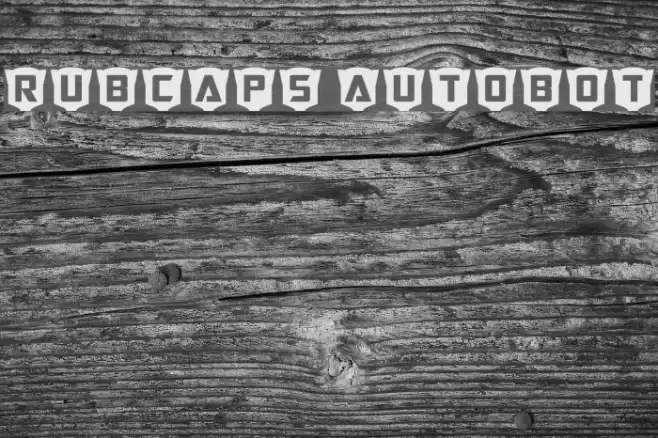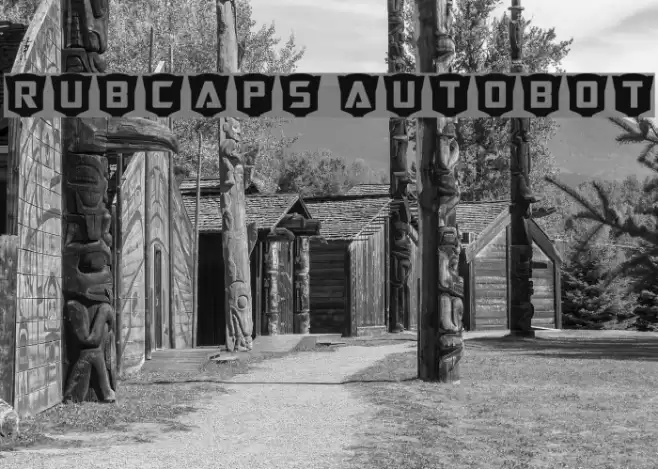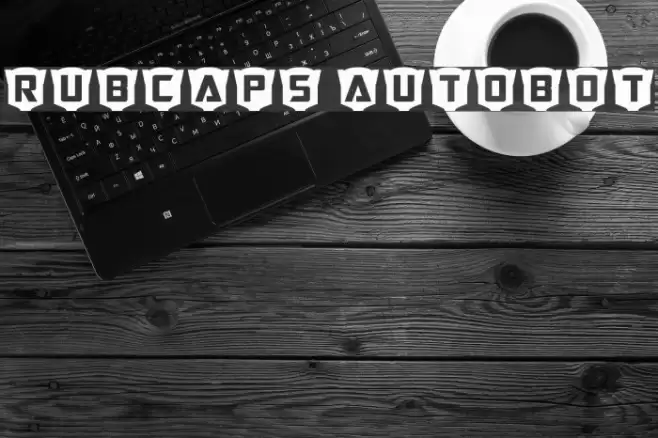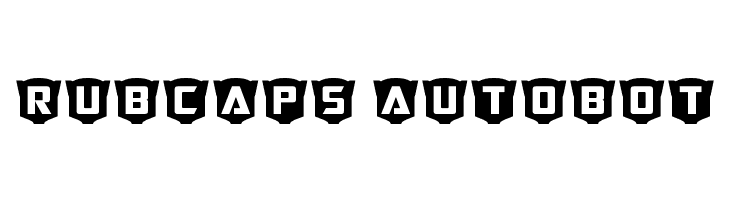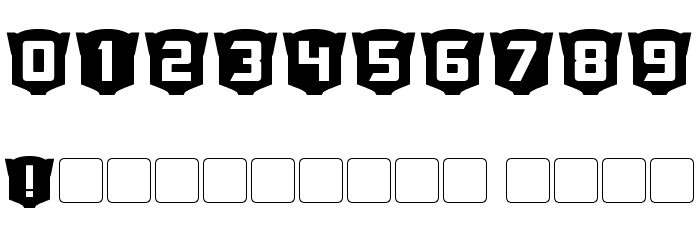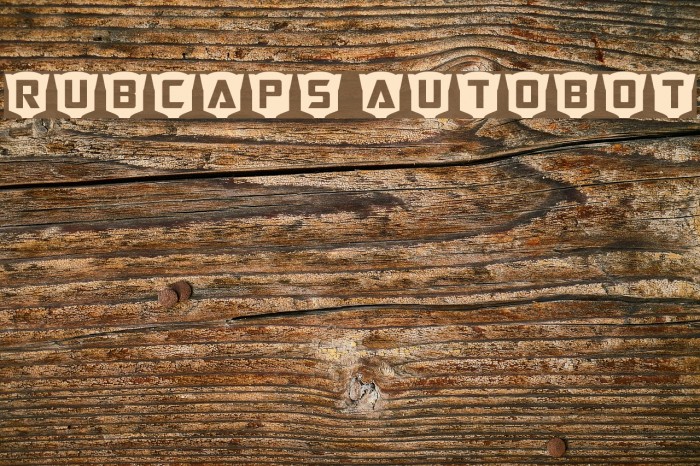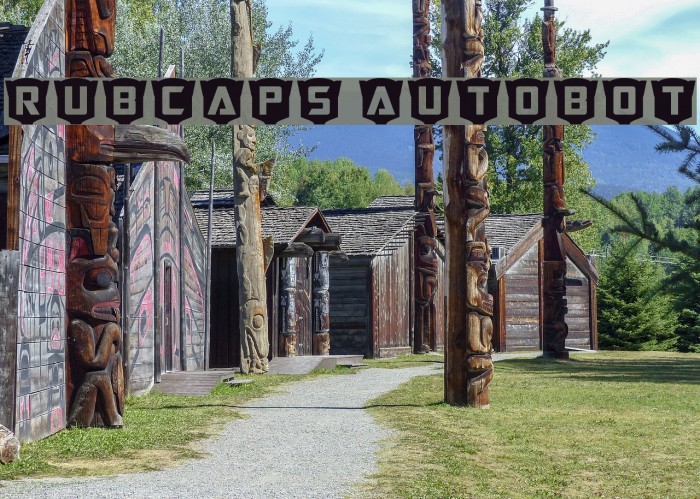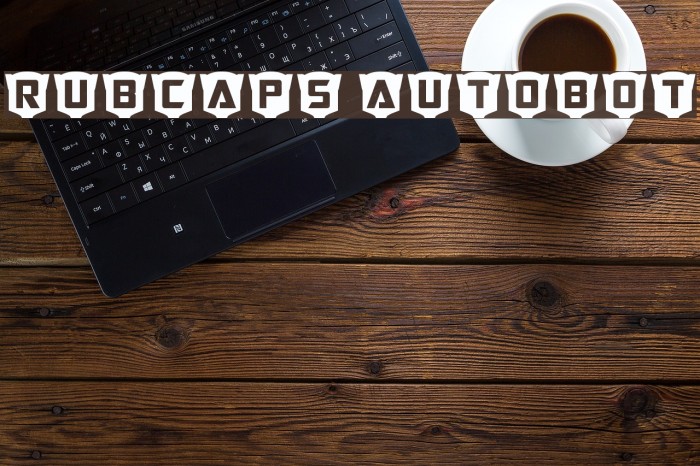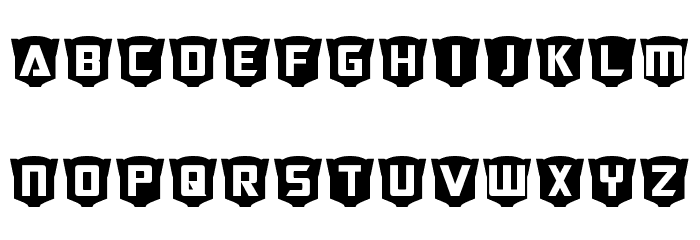
RubCaps Autobot Font
RubCaps Autobot Description
This font features a bold and futuristic design, characterized by its blocky and angular letterforms. Each character is enclosed within a shield-like shape, giving it a distinctive and robust appearance. The uppercase and lowercase letters share a similar style, maintaining consistency across the alphabet. The numbers and special characters are designed to match the boldness and geometric nature of the letters. This font is ideal for projects that require a strong, modern, and tech-inspired aesthetic.
A bold, futuristic font with angular, shield-like characters from Uncategorized fonts.
- Proposed Projects: Ideal for sci-fi movie posters, video game titles, tech branding, and futuristic-themed designs.
- Overall Style: Futuristic